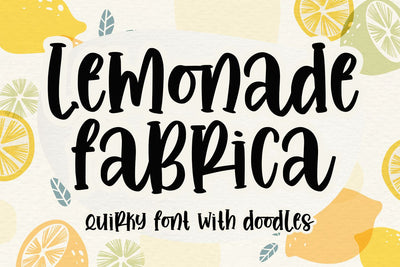
Lemonade Fabrica
introducing
LEMONADE FABRICA
-the quirky handwritten font-
It is a beautiful quirky font that perfect for a lettering project
The doodles make this font so perfect.